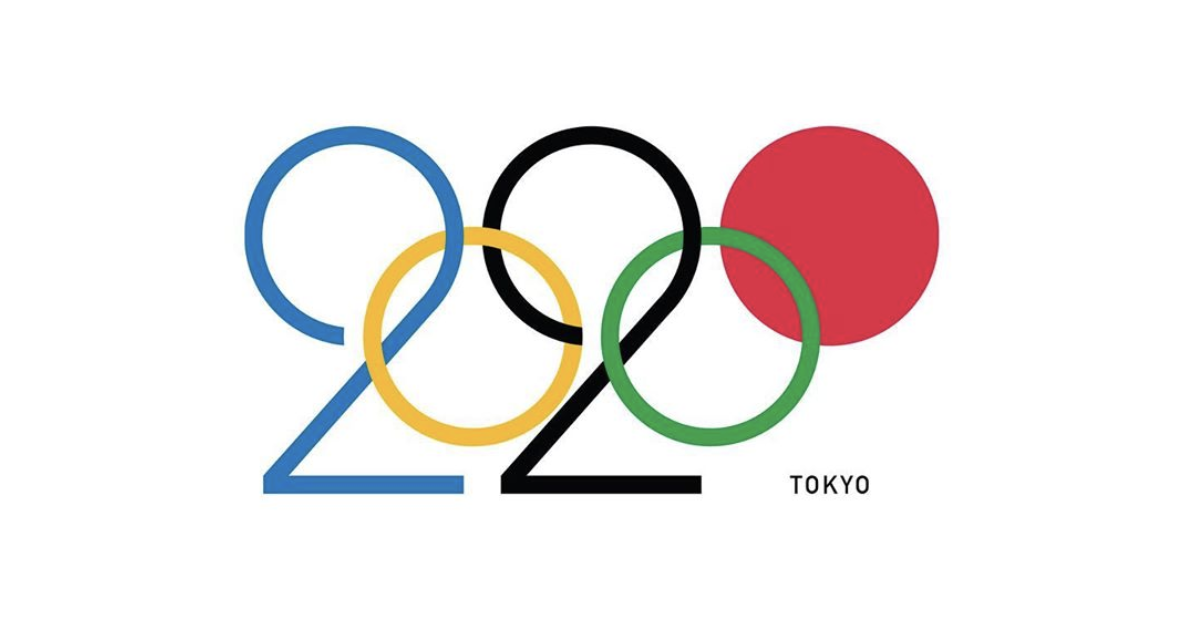
Debate: an Olympics logo that wasn't and the ongoing drama of Tokyo 2020's emblems
When Darren Newman posted his concept logo for the Tokyo 2020 Olympic Games on Instagram his design went viral. Eventually designers from around the world entered the debate game for the conceptual idea of Newman which morphs the Olympic rings to read '2020' reports Creative Bloq.
For some the designer's creative take on the branding of Tokyo 2020 is “a masterclass in design”. For others the Tokyo 2020 logo that wasn't “is really terrible – it would look awful next to the actual Olympic rings logo (which it would appear alongside 99% of the time, so double-boring) and would never be authorised because the IOC is NUTS about protecting the rings branding.”
“There has been a lot of positive response to it which is great. There have also been a fair few negative responses, which I’m more than willing to accept – I’m just overwhelmed with the response to it” said Newman of the massive reaction which takes place on several Reddit forums.
Well, designers, this viral post and the reaction it followed is nothing compared to the very official Tokyo 2020 logo plagiarism drama which took place four years ago.
The initial design for the official emblems of the 2020 Summer Olympics and Paralympics were unveiled on 24 July 2015.
The logo resembled a stylized 'T': a red circle in the top-right corner representing a beating heart, the flag of Japan, and an “inclusive world in which everyone accepts each other”; and a dark grey column in the centre representing diversity. The Paralympic emblem was an inverted version of the pattern made to resemble an equal sign.
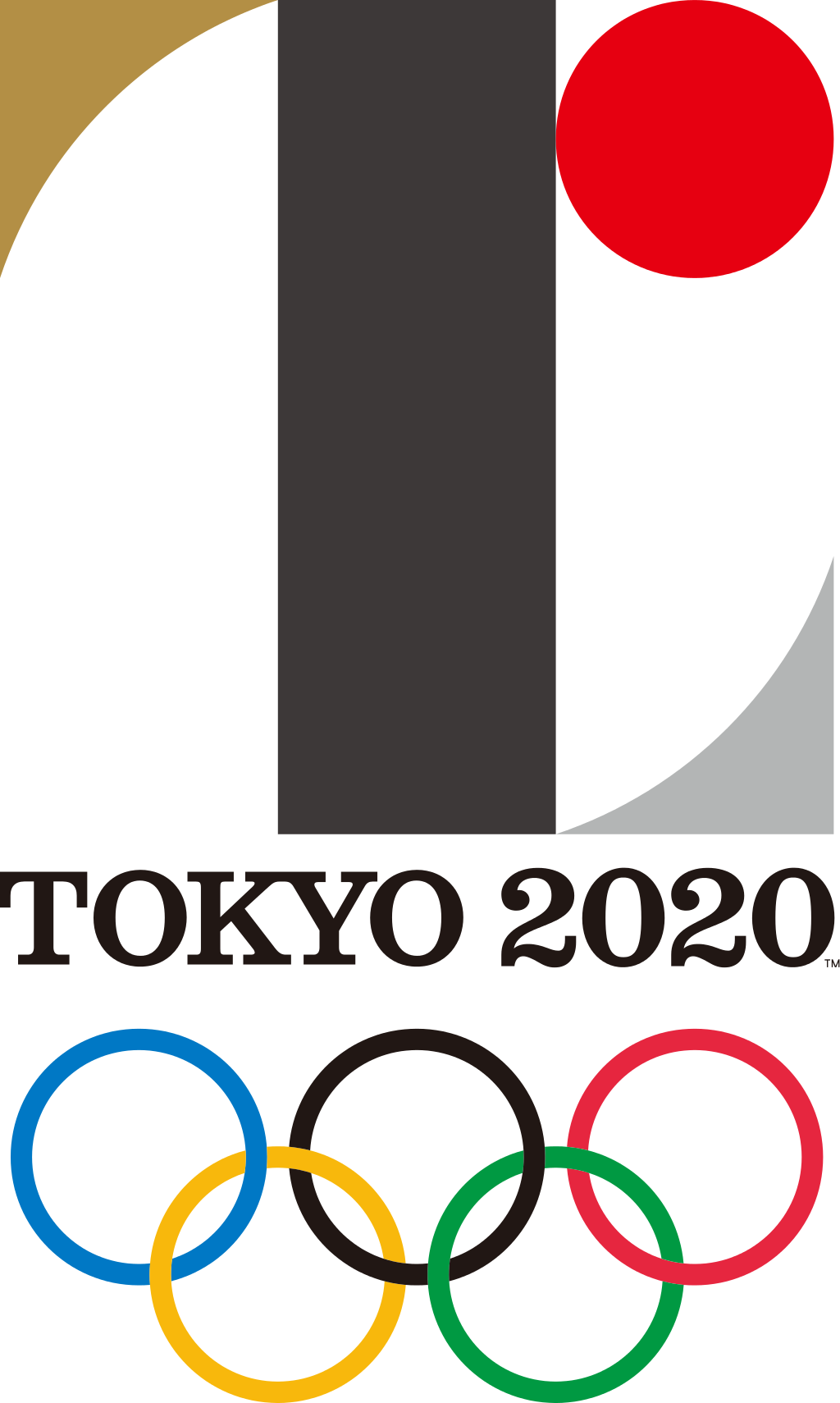
Shortly after the unveiling, Belgian graphic designer Olivier Debie accused the organizing committee of plagiarizing a logo he had designed for the Théâtre de Liège, which aside from the circle, consisted of nearly identical shapes. Tokyo's organizing committee denied that the emblem design was plagiarized, arguing that the design had gone through “long, extensive and international” intellectual property examinations before it was cleared for use.
Debie filed a lawsuit against the IOC to prevent use of the infringing logo.
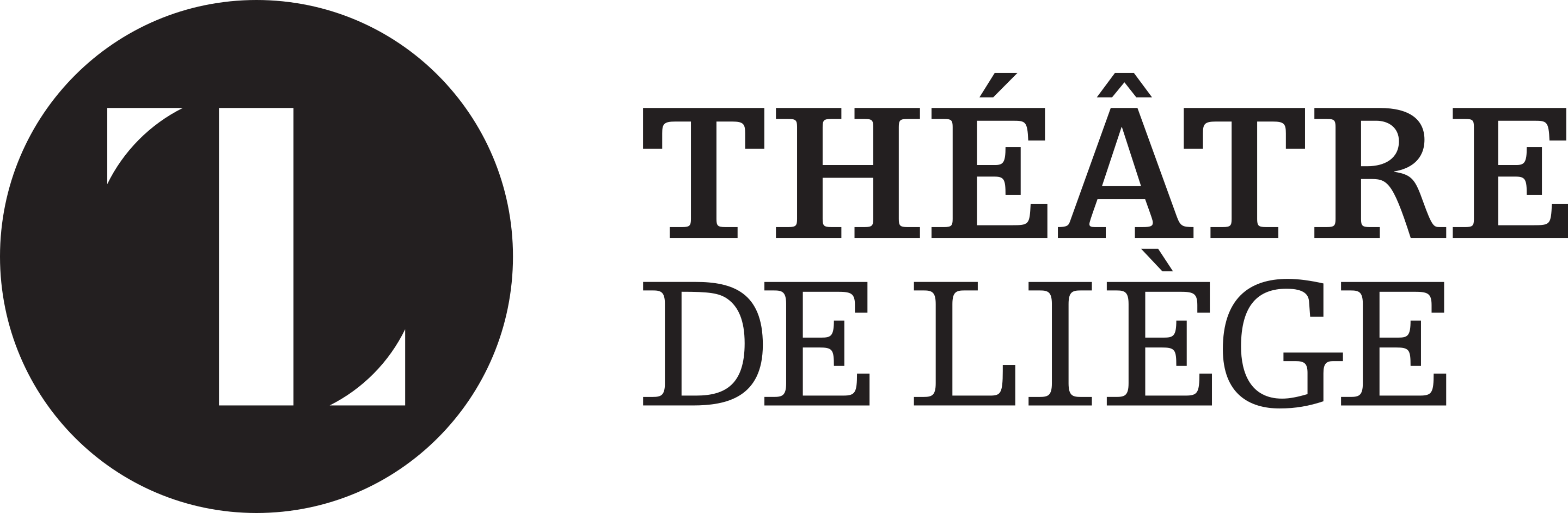
The emblem's designer, Kenjirō Sano, defended the design, stating that he had never seen the Liège logo, while TOCOG released an early sketch of the design that emphasized a stylized 'T' and did not resemble the Liège logo. However, Sano was found to have had a history of plagiarism, with others alleging his early design plagiarized work of Jan Tschichold, that he used a photo without permission in promotional materials for the emblem, along with other past cases.
On 1 September 2015, following an emergency meeting of TOCOG, Governor of Tokyo Yōichi Masuzoe announced that they had decided to scrap Sano's two logos. The committee met on 2 September 2015 to decide how to approach another new logo design.
Eventually, on 24 November 2015, an Emblems Selection Committee was established to organize an open call for design proposals, open to Japanese residents over the age of 18, with a deadline set for 7 December 2015. The winner would receive ¥1 million and tickets to the opening ceremonies of both the 2020 Summer Olympics and Paralympics.
On 8 April 2016, a new shortlist of four pairs of designs for the Olympics and Paralympics were unveiled by the Emblems Selection Committee; the Committee's selection—with influence from a public poll—was presented to TOCOG on 25 April 2016 for final approval.
The new emblems for the 2020 Olympics and Paralympics were unveiled on 25 April 2016; designed by Asao Tokolo, who won a nationwide design contest, the emblem takes the form of a ring in an indigo-coloured checkerboard pattern. The design is meant to “express a refined elegance and sophistication that exemplifies Japan.”
Note to oneself: this logo drama of Olympic proportions is still going strong.